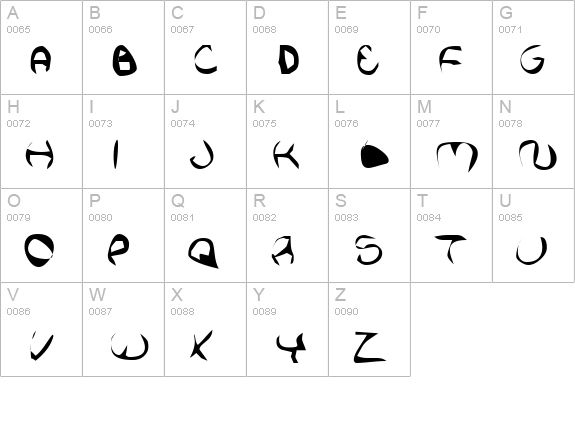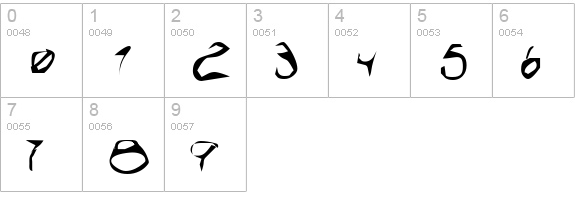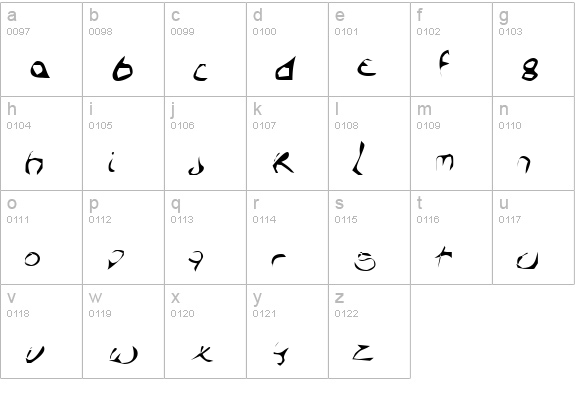
Coulon Liquor Font Details
Coulon Liquor font is a sophisticated and elegant typeface that exudes a sense of luxury and refinement. With its intricate details and sleek design, this font is perfect for adding a touch of class to any project. Whether you're creating wedding invitations, branding materials, or editorial designs, Coulon Liquor font will elevate your work to the next level. What sets Coulon Liquor font apart is its unique blend of traditional and modern elements, making it versatile and timeless. The combination of sharp serifs and flowing lines creates a harmonious balance that is both eye-catching and easy to read. This font is perfect for conveying a sense of sophistication and elegance in your designs. Best of all, Coulon Liquor font is freely available to download at FontsMarket.com. This means you can easily access this exquisite typeface without any cost, allowing you to enhance your projects with a touch of luxury without breaking the bank. Don't miss out on the opportunity to add Coulon Liquor font to your font collection and take your designs to the next level.